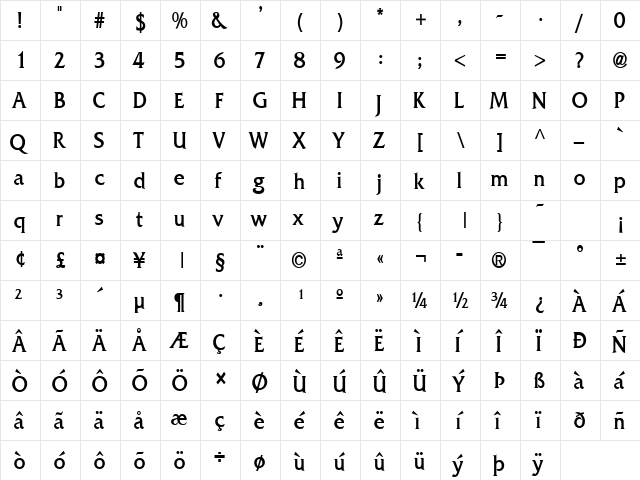
Franco-Condensed Bold
Design Context for Franco-Condensed Typeface
Franco-Condensed is a composed and adaptable typeface that performs quietly and consistently across a wide range of design contexts. Its bold stroke weight gives it real presence on the page. Its narrow stance lets it pack a punch even in space-constrained designs.